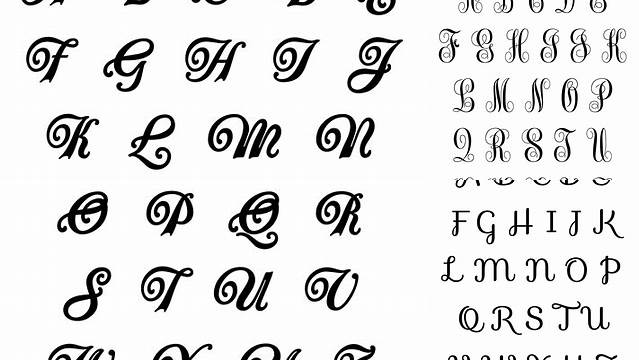
English Alphabet: Different Font Styles & Types
Introduction: Exploring the World of English Fonts
Hey guys! Ever wondered about the different fonts alphabet we use in English? Well, let's dive into this fascinating world where letters aren't just letters, but also works of art! In this article, we'll explore the vast universe of English fonts, from the classic typefaces that have stood the test of time to the modern and funky styles that add a unique flair to our writing. Understanding the different fonts alphabet isn't just about aesthetics; it's about conveying the right message and creating the desired impact. Think about it: the font you choose can influence how your reader perceives your words. A formal document might call for a serious serif font, while a fun invitation could benefit from a playful script. The world of fonts is incredibly diverse, with each typeface possessing its own personality and characteristics. From the elegant curves of calligraphy to the clean lines of sans-serif fonts, there's a font out there for every occasion and every message. So, whether you're a designer, a writer, or just someone curious about the different fonts alphabet, get ready to embark on a journey through the shapes and styles that make up the written word. We'll cover the basics, delve into the history of fonts, and even explore some trendy options that are popular today. So buckle up and let's explore the amazing different fonts alphabet!
Serif Fonts: The Traditional and Timeless Choice
Let's start with the classics, shall we? Serif fonts are the granddaddies of the font world, and they've been around for centuries. You know them by their little feet, or serifs, that extend from the main strokes of the letters. Think Times New Roman, Garamond, and Georgia – these are the workhorses of the serif family. But what makes serif fonts so special? Well, those serifs aren't just decorative; they actually help guide the reader's eye across the page. This makes serif fonts super readable for large blocks of text, like in books, newspapers, and academic papers. Serif fonts often evoke a sense of tradition, authority, and formality. That's why you see them used in official documents, legal papers, and the body text of many websites. But don't think serif fonts are just for serious stuff! There's a lot of variety within the serif category, from the elegant and refined to the bold and impactful. For example, a font like Didot, with its high contrast and delicate serifs, can add a touch of sophistication to your design. On the other hand, a font like Bookman Old Style, with its sturdy serifs and rounded forms, has a more friendly and approachable feel. When choosing a serif font, consider the overall tone and message you want to convey. A classic serif font can lend credibility and trustworthiness to your words, while a more modern serif can add a touch of personality and style. So, whether you're writing a novel, designing a website, or creating a presentation, understanding the nuances of serif fonts is essential for making the right impression.
Sans-Serif Fonts: Modern and Minimalist
Now, let's jump into the world of sans-serif fonts! These fonts are the cool, modern cousins of serif fonts. Sans-serif literally means "without serifs," so these fonts have a clean, minimalist look without the little feet. Think Arial, Helvetica, and Open Sans – these are the go-to choices for a sleek and contemporary feel. Sans-serif fonts came onto the scene in the 20th century and quickly became popular for their readability and versatility. They're especially great for headlines, logos, and digital displays, where their clean lines stand out. One of the biggest advantages of sans-serif fonts is their legibility on screens. The absence of serifs makes them easier to read at smaller sizes and on lower-resolution displays. That's why you see them used extensively on websites, apps, and other digital platforms. But sans-serif fonts aren't just for the digital world. They can also be a fantastic choice for print materials, especially when you want to create a modern and uncluttered design. Like serif fonts, sans-serif fonts come in a wide range of styles. Some, like Helvetica, are known for their neutrality and versatility, while others, like Futura, have a more geometric and futuristic vibe. When choosing a sans-serif font, think about the overall aesthetic you're aiming for. A clean and simple sans-serif can convey a sense of clarity and efficiency, while a bolder sans-serif can make a strong statement. Whether you're designing a website, creating a logo, or writing an email, sans-serif fonts are a powerful tool for communicating your message with style.
Script Fonts: Elegant and Expressive
If you're looking to add a touch of elegance and personality to your writing, script fonts are the way to go! These fonts mimic the flowing strokes of handwriting, giving your text a personal and artistic feel. Think calligraphy, cursive, and handwritten styles – script fonts are all about adding flair and character. Script fonts are perfect for invitations, greeting cards, logos, and anything that calls for a touch of sophistication. They can evoke a sense of romance, creativity, and individuality, making them a popular choice for special occasions and branding. However, script fonts can be a bit tricky to use. Because they're often more decorative and elaborate than serif or sans-serif fonts, they can be less legible in large blocks of text. That's why it's best to use script fonts sparingly, for headlines, titles, or short phrases. When choosing a script font, consider the overall mood and style you want to create. A formal script font, like a classic calligraphy style, can add a touch of elegance and tradition. A more casual script font, like a handwritten style, can give your text a friendly and approachable feel. There are tons of script fonts available, from elegant and flowing to bold and playful. Some mimic the look of traditional calligraphy, while others have a more modern and whimsical feel. Just remember to use them judiciously and pair them with a more legible font for body text.
Decorative Fonts: Funky and Unique
Alright, let's get a little wild with decorative fonts! These are the fonts that don't fit neatly into any other category. They're the quirky, fun, and unique typefaces that add a lot of personality to your designs. Think display fonts, novelty fonts, and anything that stands out from the crowd – decorative fonts are all about making a statement. Decorative fonts are perfect for headlines, posters, and other visual elements where you want to grab attention. They can add a playful, retro, or edgy vibe to your designs, depending on the style you choose. But like script fonts, decorative fonts should be used sparingly. Because they're often highly stylized and less legible, they're not ideal for body text. Save them for those moments when you want to make a big impact. When choosing a decorative font, think about the overall message and tone you want to convey. A vintage-inspired decorative font can add a retro feel to your design, while a bold and geometric decorative font can give it a modern edge. There are literally thousands of decorative fonts out there, from whimsical and cartoonish to edgy and industrial. Some mimic the look of hand-lettering, while others are completely abstract and experimental. So, if you're looking to add a unique touch to your designs, decorative fonts are definitely worth exploring. Just remember to use them wisely and pair them with a more legible font for the main content.
Monospace Fonts: The Typewriter Style
Let's talk monospace fonts! These are the fonts where each letter takes up the same amount of horizontal space. Think Courier New, Consolas, and Monaco – these are the fonts that give you that classic typewriter look. Monospace fonts are often associated with coding and technical writing, as they make it easy to align characters in columns. But they can also be used for other creative purposes, like adding a retro or industrial feel to your designs. One of the main characteristics of monospace fonts is their uniformity. Each letter, whether it's a skinny "i" or a wide "m," occupies the same amount of space. This can make them a bit less readable for long blocks of text, as the eye doesn't have the usual visual cues to differentiate the letters. However, this uniformity can also be an advantage in certain situations. For example, monospace fonts are great for displaying code, as they make it easy to spot errors and align elements. They're also often used in terminals and command-line interfaces, where a consistent character width is essential. When choosing a monospace font, consider the context in which it will be used. If you're writing code or technical documentation, a clear and legible monospace font is crucial. If you're going for a retro or vintage look, a more stylized monospace font can add a lot of character. While they may not be the most versatile fonts for general use, monospace fonts have a unique charm and functionality that make them a valuable tool for specific applications.
Choosing the Right Font: Tips and Tricks
Okay, guys, so we've covered a lot of ground in the world of fonts! But how do you actually choose the right font for your project? It's a big decision, as the font you select can have a huge impact on the overall look and feel of your design. So, let's dive into some tips and tricks for choosing the right font. First and foremost, think about your message. What are you trying to communicate? Is it a serious and professional message, or something more playful and creative? The tone of your message should guide your font choice. A formal document might call for a classic serif font, while a fun invitation could benefit from a more whimsical script. Next, consider your audience. Who are you trying to reach? Different audiences may respond to different fonts. For example, a younger audience might be more receptive to modern and trendy fonts, while an older audience might prefer more traditional typefaces. Legibility is also crucial. No matter how beautiful a font is, it won't be effective if people can't read it. Make sure your font is clear and easy to read, especially for body text. Avoid using overly decorative or complex fonts for large blocks of text. Think about the context. Where will your font be used? A font that looks great on a website might not work as well in print, and vice versa. Consider the size, resolution, and medium in which your font will be displayed. Don't be afraid to experiment! Try out different fonts and see how they look together. Font pairing is an art in itself, and it can take some practice to find the right combinations. A good rule of thumb is to pair a serif font with a sans-serif font for contrast. And finally, trust your instincts. If a font feels right for your project, go with it! There are no hard and fast rules when it comes to font choice, so don't be afraid to break the mold and create something unique. So, armed with these tips, go forth and explore the amazing world of fonts! With a little practice, you'll be a font-choosing pro in no time.
Font Pairing: Creating Harmony and Visual Appeal
Font pairing is like matchmaking for typefaces! It's the art of combining two or more fonts in a way that creates harmony and visual appeal. When done well, font pairing can elevate your design and make your message even more effective. But when done poorly, it can create a confusing and jarring experience for the reader. So, how do you master the art of font pairing? The key is to create contrast. You want to choose fonts that complement each other but also have enough visual difference to stand out. One of the most common font pairing strategies is to combine a serif font with a sans-serif font. This creates a classic and balanced look. The serif font can be used for body text, while the sans-serif font can be used for headlines or vice versa. Another approach is to pair a bold font with a lighter font. This creates a strong visual hierarchy and helps to guide the reader's eye. You can also pair fonts with different personalities. For example, you might pair a formal serif font with a more casual script font to create a sense of contrast and interest. When pairing fonts, it's important to consider the overall tone and style of your design. The fonts you choose should reflect the message you're trying to communicate. If you're designing a formal document, you'll want to choose more traditional and professional fonts. If you're creating a fun and playful design, you can experiment with more creative and expressive fonts. There are also some common font pairing mistakes to avoid. One mistake is to pair fonts that are too similar. If the fonts are too alike, they won't create enough contrast and the design will look flat. Another mistake is to pair too many fonts. Stick to two or three fonts at most, or your design will look cluttered and confusing. So, with a little practice and experimentation, you can become a font pairing master! Don't be afraid to try out different combinations and see what works best for your project. The right font pairing can make all the difference in creating a visually appealing and effective design.
Trendy Fonts in 2024: What's Hot and What's Not
Let's talk about what's trending in the font world! Just like fashion and design, font trends come and go. So, if you want to keep your designs fresh and up-to-date, it's important to know what's hot and what's not. So, what are the trendy fonts in 2024? One of the biggest trends is a return to retro and vintage styles. Fonts that evoke the look of the 70s, 80s, and 90s are making a comeback. Think bold serifs, groovy scripts, and funky display fonts. Another trend is for minimalist and geometric sans-serif fonts. These fonts are clean, modern, and versatile, making them a popular choice for a wide range of designs. Variable fonts are also gaining traction. These fonts allow you to adjust the weight, width, and other characteristics, giving you a lot of flexibility and control. Handwritten and hand-drawn fonts are still popular, adding a personal and authentic touch to designs. But the style is evolving, with more emphasis on natural and imperfect strokes. In terms of specific font families, some of the trending choices include: Playfair Display, Montserrat, Raleway, Open Sans, and Roboto. These fonts are versatile, legible, and widely available. But remember, trends are just trends. While it's good to be aware of what's popular, it's more important to choose fonts that are right for your project. Don't feel pressured to use a trendy font just because it's popular. Consider your message, your audience, and the overall tone of your design. A classic and timeless font can be just as effective as a trendy one. So, stay informed, experiment with different styles, and trust your instincts. With a little creativity, you can create designs that are both trendy and timeless. Now you have an idea of the trendy fonts in 2024.
Conclusion: The Art and Science of Typography
Wow, guys, we've reached the end of our font-tastic journey! We've explored the different fonts alphabet in English, from the classic serifs to the modern sans-serifs, the elegant scripts to the funky decorative fonts. We've learned about font pairing, font trends, and how to choose the right font for your project. So, what's the big takeaway? Well, typography is both an art and a science. It's about understanding the technical aspects of fonts – their shapes, sizes, and spacing – but it's also about using fonts creatively to communicate your message and create a visual impact. Choosing the right font is crucial for making your message heard, and you can now confidently express yourself through typography. Think about fonts as the voice of your words. Just like a speaker's tone and inflection can influence how their message is received, the font you choose can impact how your text is perceived. A well-chosen font can add credibility, personality, and emotion to your writing. It can make your text more engaging, more readable, and more memorable. But typography is more than just choosing a pretty font. It's about creating a cohesive and harmonious visual experience. It's about considering the overall layout, the spacing, the color, and how all these elements work together to create a unified design. So, as you embark on your own typographic adventures, remember to experiment, to play, and to trust your instincts. There are no hard and fast rules when it comes to typography, so don't be afraid to break the mold and create something unique. The world of fonts is vast and ever-evolving, but with a little knowledge and creativity, you can master the art and science of typography. We've explored the different fonts alphabet so you can communicate effectively!